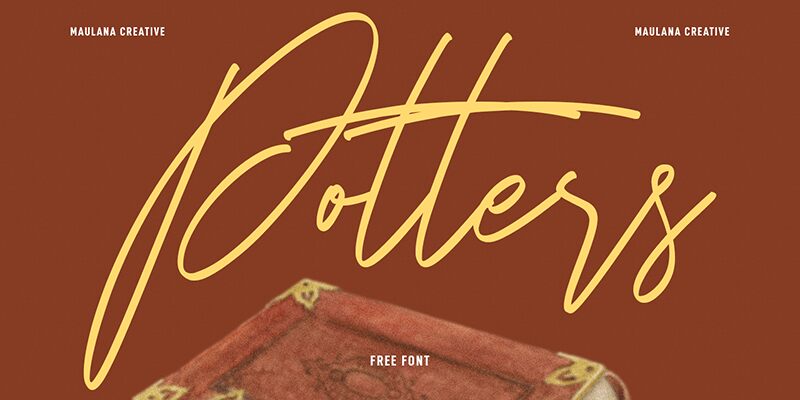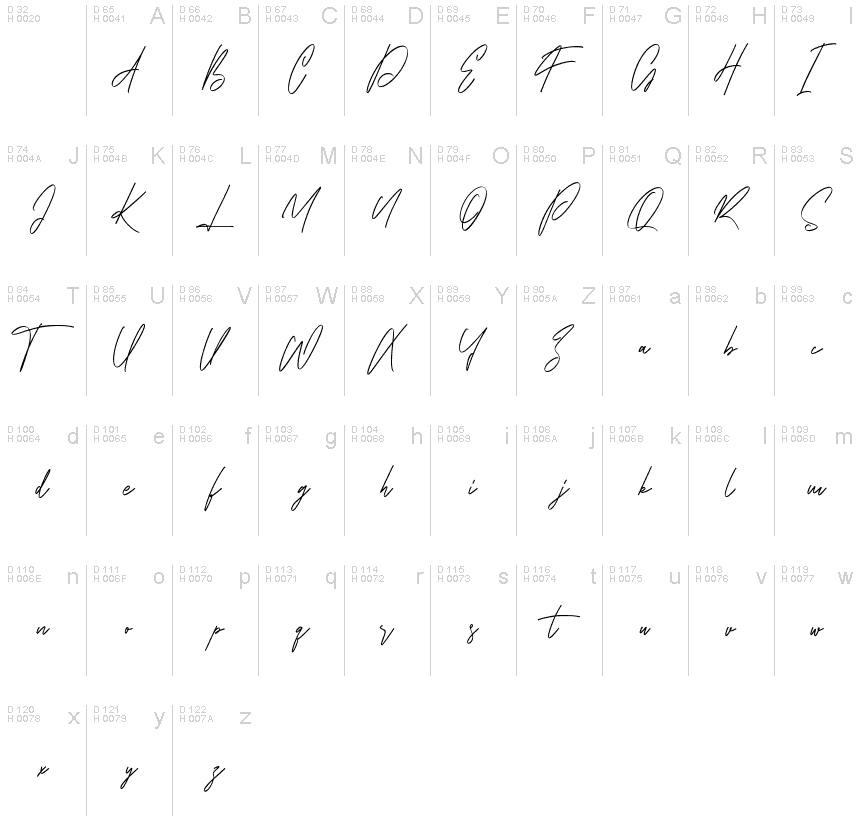
Potters Free Regular
Potters is a stunning extra-light font designed by Maulana Creative. With its unique handwritten signature style and condensed width, this font is perfect for adding an elegant and personal touch to various projects. From wedding invitations to logos, Potters' delicate strokes and smooth curves make it ideal for any design that requires a touch of sophistication. Its extra-light weight enhances its versatility, allowing it to stand out in bold headlines or blend seamlessly in subtle captions. Whether you're creating a chic menu or a minimalist brand identity, Potters' timeless charm will elevate your design game effortlessly.